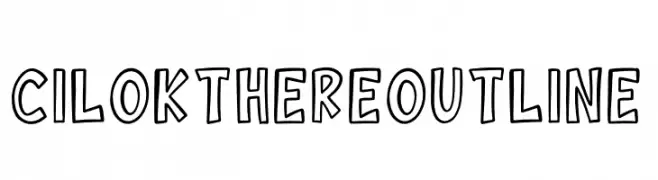
A bold, distressed font with a rugged, weathered appearance.
A bold, distressed grunge font with a textured, weathered appearance.
A distressed, grungy font with a bold, weathered appearance.
A distressed, vintage-style font with a rugged, worn appearance.
A bold, geometric font with a modern and distinctive style.
A rugged, distressed outline font with a bold, weathered appearance.
A rugged, distressed font with a textured, weathered appearance.
A distressed, grunge-style font with a bold, weathered appearance.
A bold, distressed font with rugged, weathered edges.
A bold, distressed font with a rugged, weathered appearance.
A bold, distressed stencil-style font with a rugged, weathered appearance.
A bold, distressed font with a vintage, weathered appearance.
An elegant script font with flowing, cursive letterforms and sophisticated style.
A playful and whimsical script font with flowing, interconnected letterforms.
A playful, whimsical font with tall, narrow letters and a creative flair.
A bold, distressed font with a grunge, weathered appearance.
A rugged, distressed font with a bold, weathered appearance.
A bold, distressed font with a grunge, weathered appearance.
A bold, distressed font with a gritty, weathered appearance.
A bold, distressed font with a grunge, weathered appearance.
A bold, rounded, and geometric sans-serif font with a modern aesthetic.
A bold, outlined geometric font with a modern and structured design.
A bold, distressed font with a grungy, weathered appearance.
A bold, distressed font with a rugged, weathered appearance.
A decorative font with angelic figures integrated into each letter, offering a mystical and ethereal style.